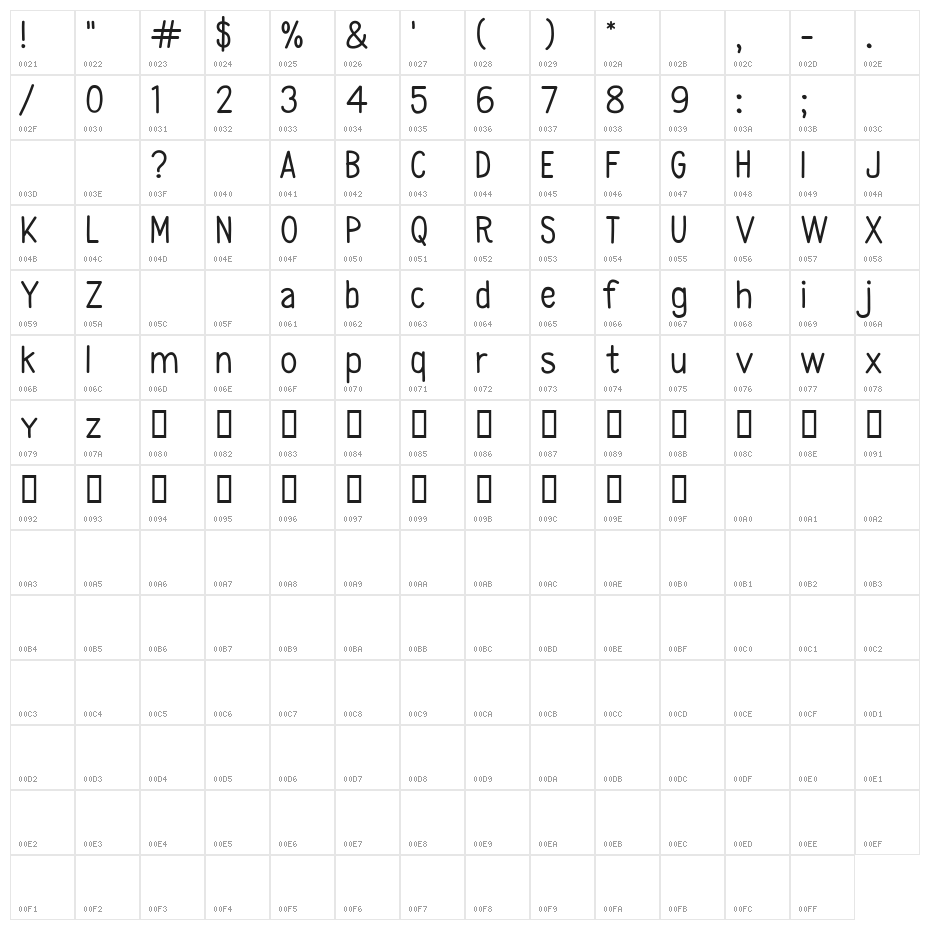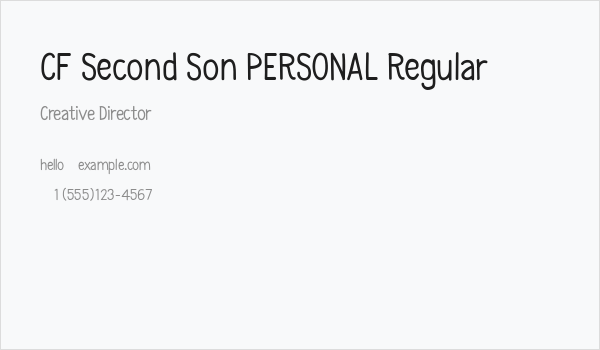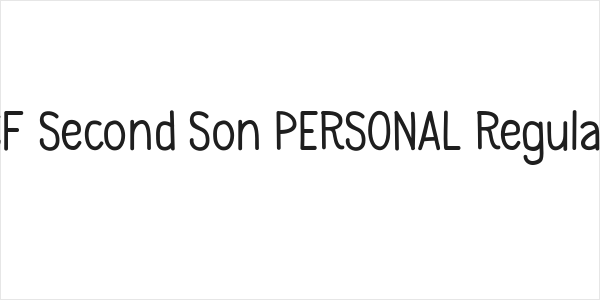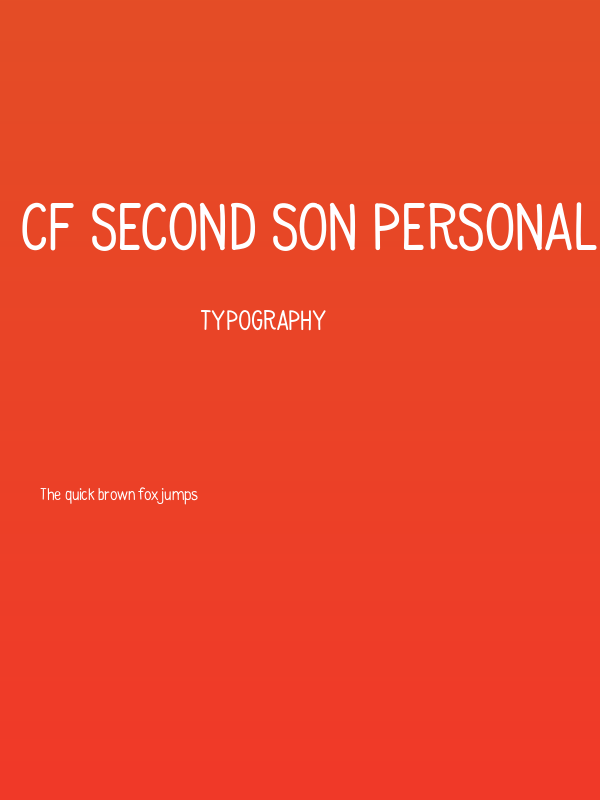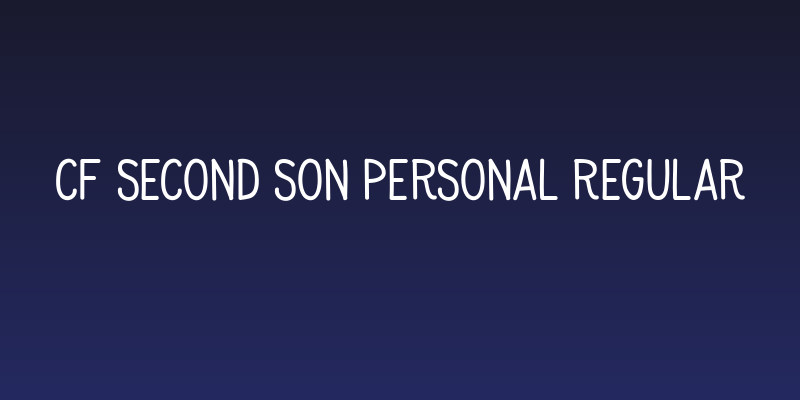
CF Second Son PERSONAL Regular Font
CF Second Son PERSONAL Regular Description
This font features a clean and modern sans-serif style with rounded edges, giving it a friendly and approachable appearance. The characters are evenly spaced, providing a balanced and harmonious look. The uppercase letters are slightly taller than the lowercase, maintaining a consistent line weight throughout. Numbers and special characters are designed to match the overall aesthetic, ensuring readability and versatility. The font's simplicity and clarity make it suitable for a variety of design projects.
| Proposed Projects | Ideal for branding, web design, children's books, and educational materials. |